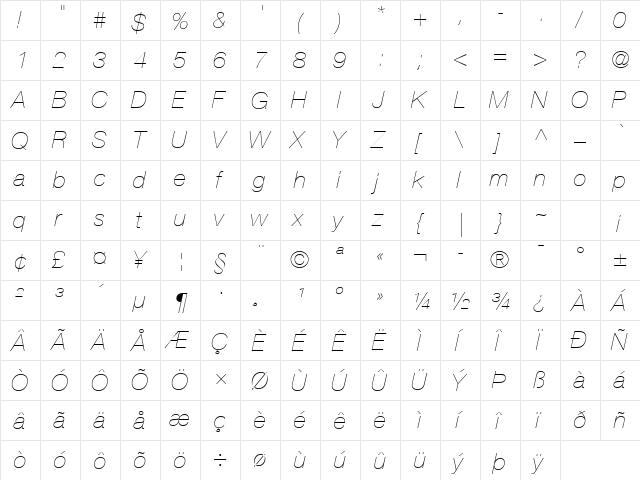
Helvetica Neue LT Com 26 Ultra Light Italic
| Foundry | Linotype GmbH |
| Designer | Linotype Design Studio |
Design Context for Helvetica Neue LT Com Typeface
Helvetica Neue LT Com takes a measured approach to typography — its balanced proportions and neutral character make it a reliable workhorse for both digital and print work. The slanted form adds forward momentum and visual energy. Its slender proportions lend an understated elegance to any composition.
Pro Tip: Use Helvetica Neue LT Com for emphasis, pull quotes, and subheadings where its slanted energy can add rhythm to the layout.